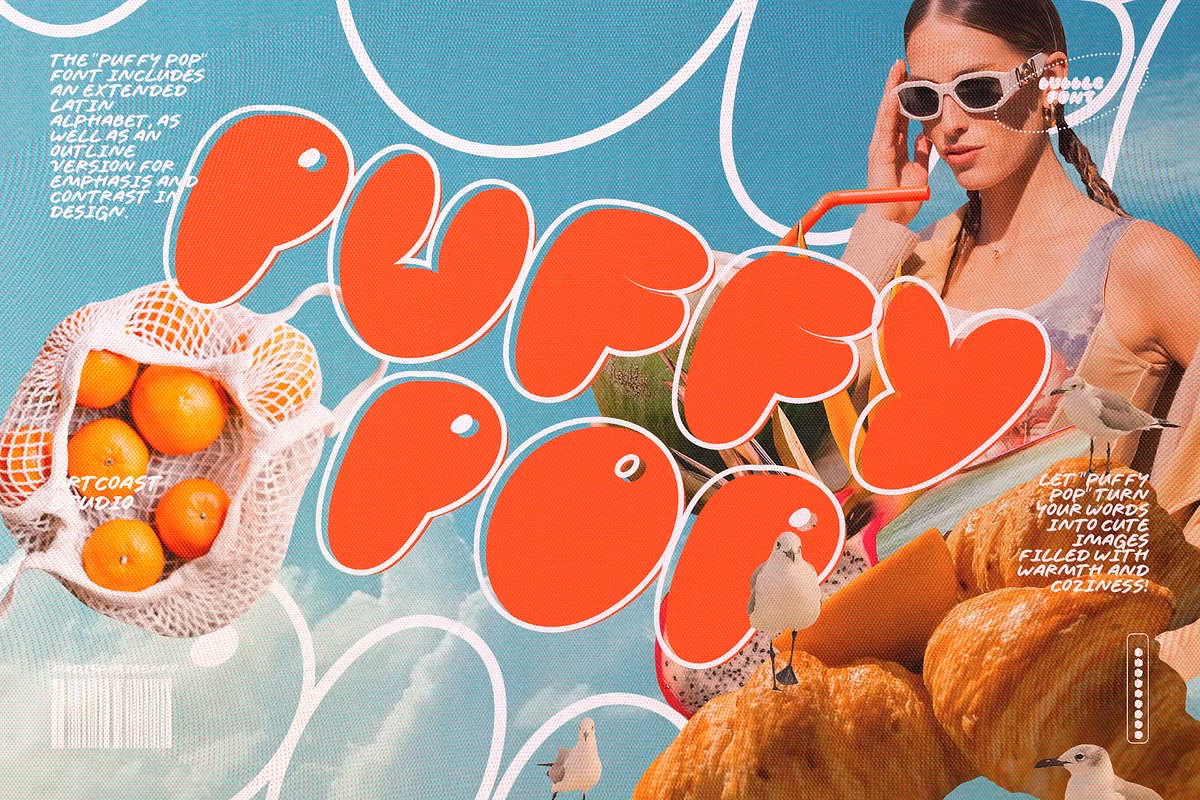
The Puffy Pop Bubble Font Duo Free Download is a fun, bubbly typeface combo that bursts with personality and charm. Perfect for playful branding, children’s content, party invitations, YouTube thumbnails, and bold social media graphics, this font duo combines a lively bubble style with a pop-inspired flair that’s impossible to ignore.
With two matching styles designed to work in harmony, you can mix and match to create dynamic, eye-catching designs. Whether you're going for cute and colorful or loud and funky, Puffy Pop has you covered. It’s packed with alternates, layered effects, and multilingual support, making it a versatile pick for creatives who love to experiment.
Add some bounce to your next project with the Puffy Pop Bubble Font Duo Free Download. Try it out and let your creativity float to the top!